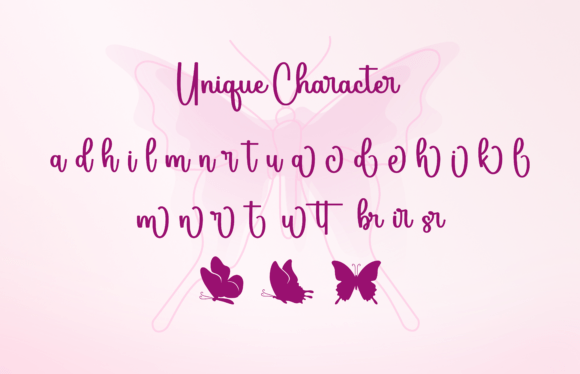
Betterfly Font
“Betterfly” is a charming handwritten font with a delicate and whimsical butterfly theme. The font features smooth, flowing strokes with an elegant yet playful script style, making it perfect for feminine and creative designs. The letterforms are well-balanced, with soft curves and stylish flourishes that give it a graceful, handwritten feel. The use of butterfly illustrations integrated into the typography enhances the theme, adding a magical and dreamy touch.
This font is ideal for projects that require a touch of elegance, such as branding, invitations, social media graphics, and product packaging. The combination of bold yet airy letterforms makes it highly readable while still feeling artistic and decorative. The subtle butterfly elements and the handwritten charm make “Betterfly” a perfect choice for designs that aim to convey warmth, beauty, and creativity.